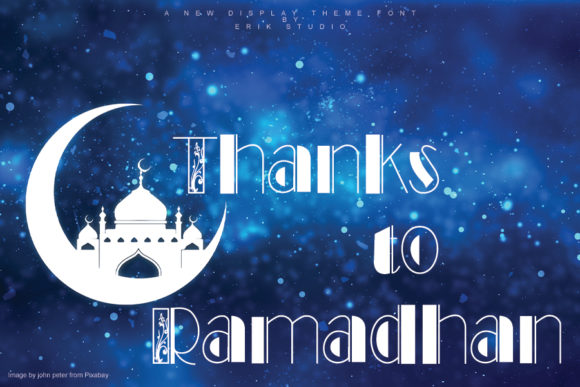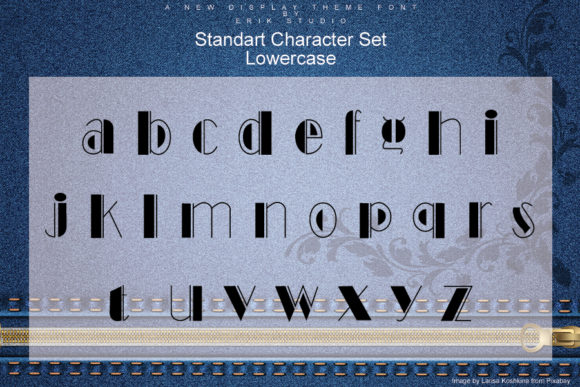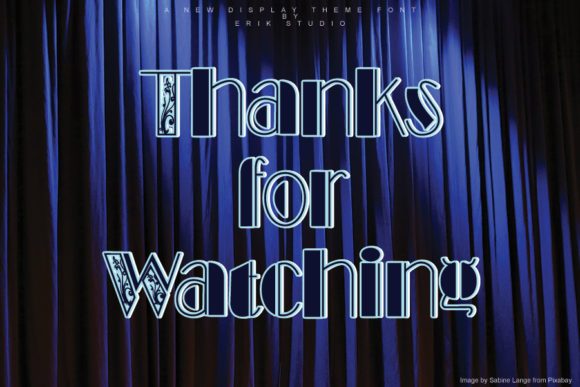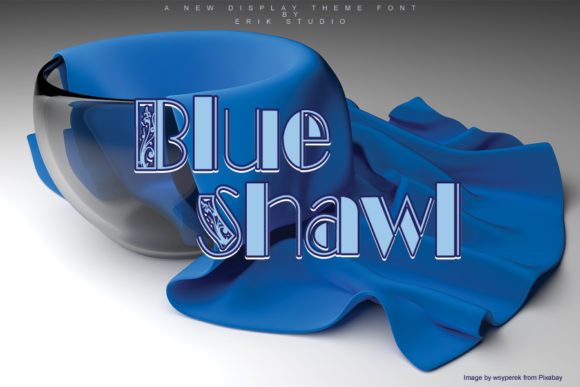
The Blue Shawl Font: A Cute & Friendly Decorative Font to Elevate Your Designs
I’ll never forget the moment I stumbled upon the Blue Shawl font. I was working on a project for a client who wanted a playful, youthful vibe, but I was struggling to find the right font to bring it all together. That’s when I discovered Blue Shawl – a cute & friendly decorative font that instantly caught my attention. In this article, I’ll share my experience with Blue Shawl, its features, and how to make the most of it in your designs.
My Honest Review of Blue Shawl Font
Here’s what I love about Blue Shawl:
- ✨ Youthful feel: Blue Shawl has an incredibly youthful and energetic vibe that makes it perfect for designs that need a playful touch.
- ✅ Chunky lettering: The font’s chunky lettering style adds a fun and quirky feel to any design.
- 💕 Easy to read: Despite its decorative nature, Blue Shawl is surprisingly easy to read, making it suitable for body text and headings.
Now, let’s talk about a few quirks:
- 🤔 Limited use in formal designs: Blue Shawl’s playful nature makes it less suitable for formal designs or projects that require a more professional tone.
- ⚠️ Glyph limitations: While Blue Shawl has a range of glyphs and stylistic alternates, it’s not as extensive as some other fonts on the market.
The Story Behind Blue Shawl Font
Blue Shawl was designed by a team of creatives who wanted to create a font that captured the essence of playfulness and youthfulness. Inspired by the carefree spirit of childhood, Blue Shawl is the perfect font for designers who want to add a touch of whimsy to their designs.
Q: What is the personality of Blue Shawl Font?
A: Blue Shawl has a playful, youthful, and friendly personality that’s perfect for designs that need a fun and energetic vibe.
Q: Is Blue Shawl a script font?
A: While Blue Shawl has some script-like qualities, it’s technically a decorative font with a chunky lettering style.